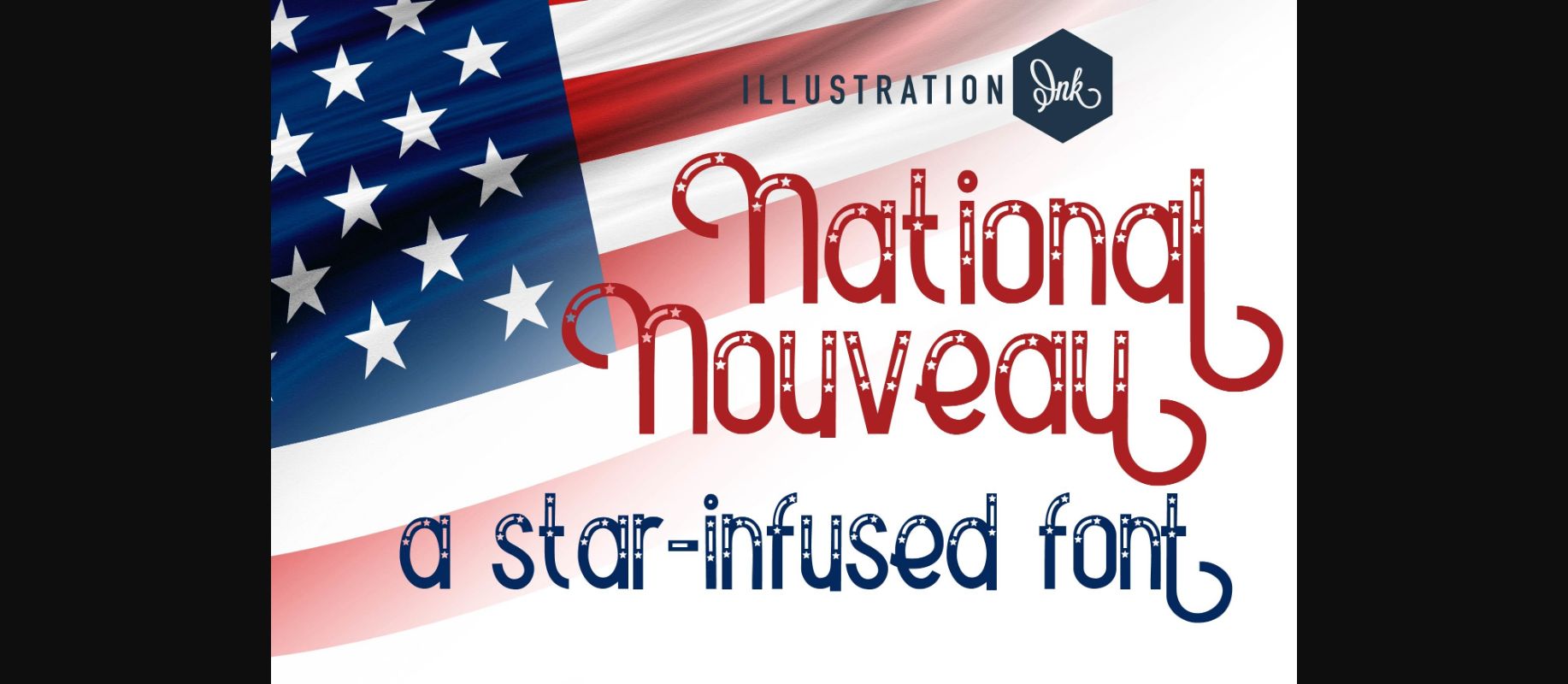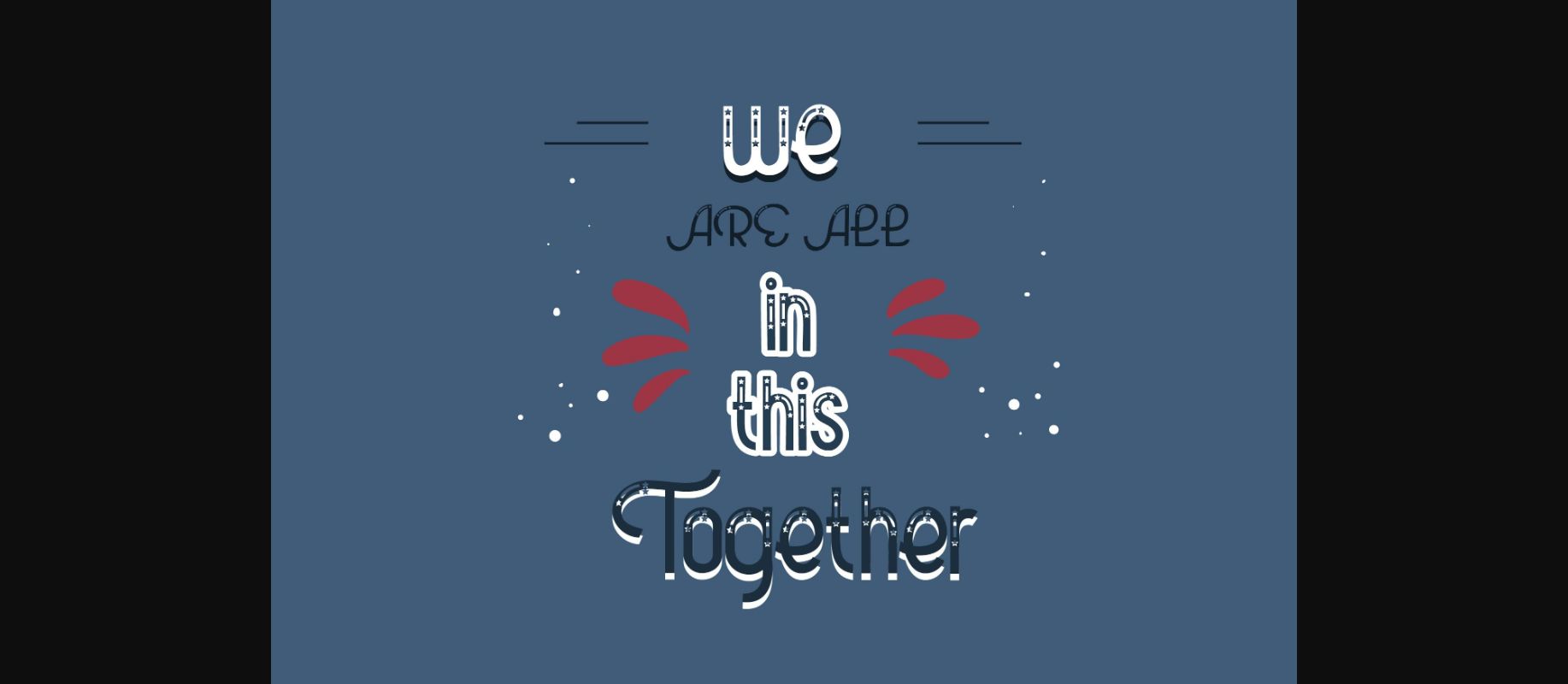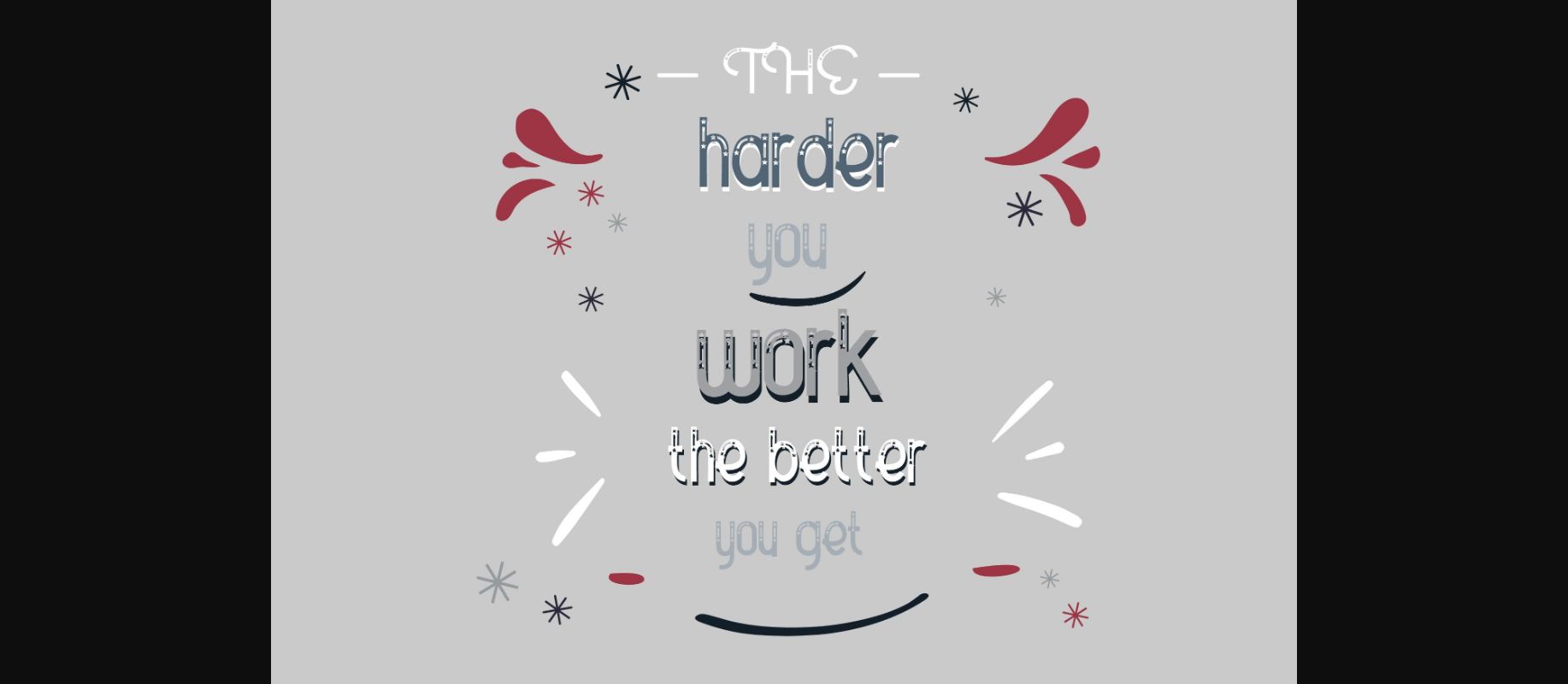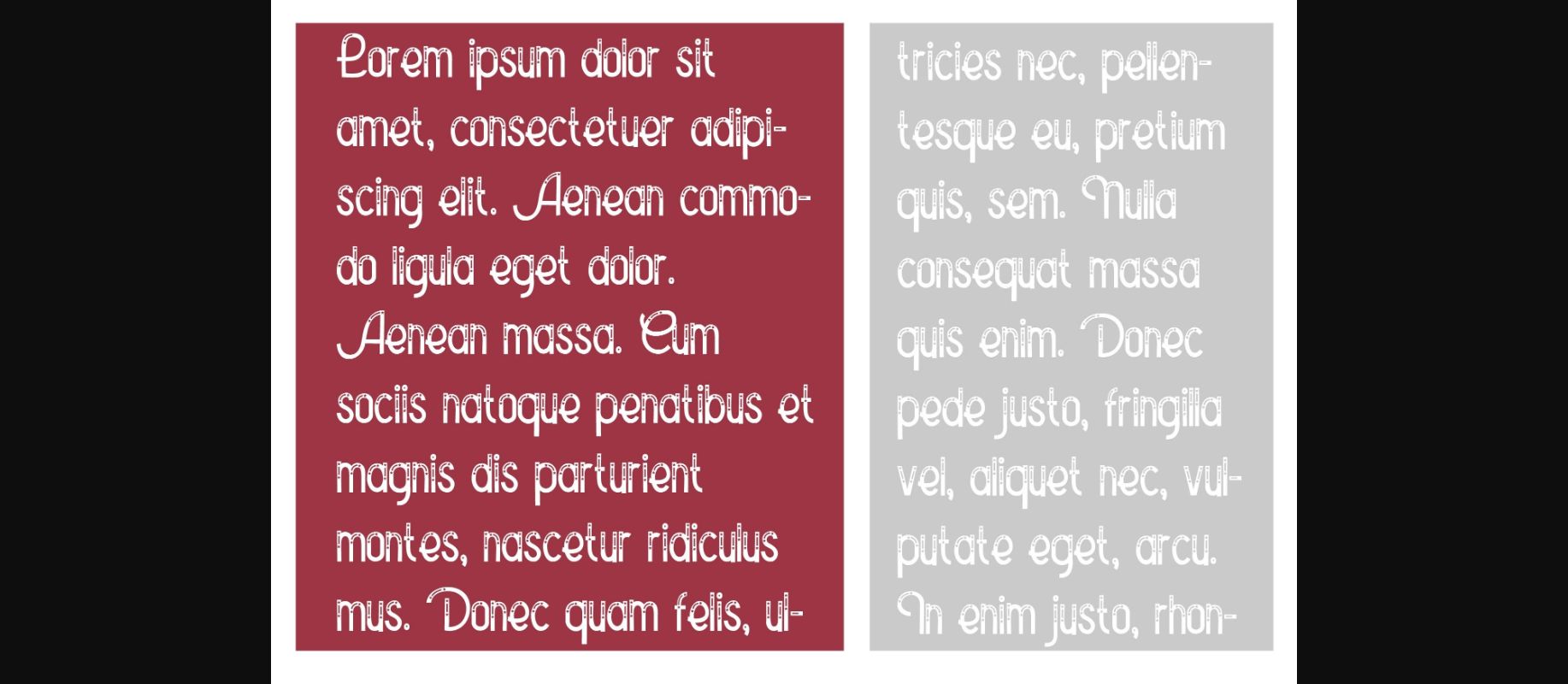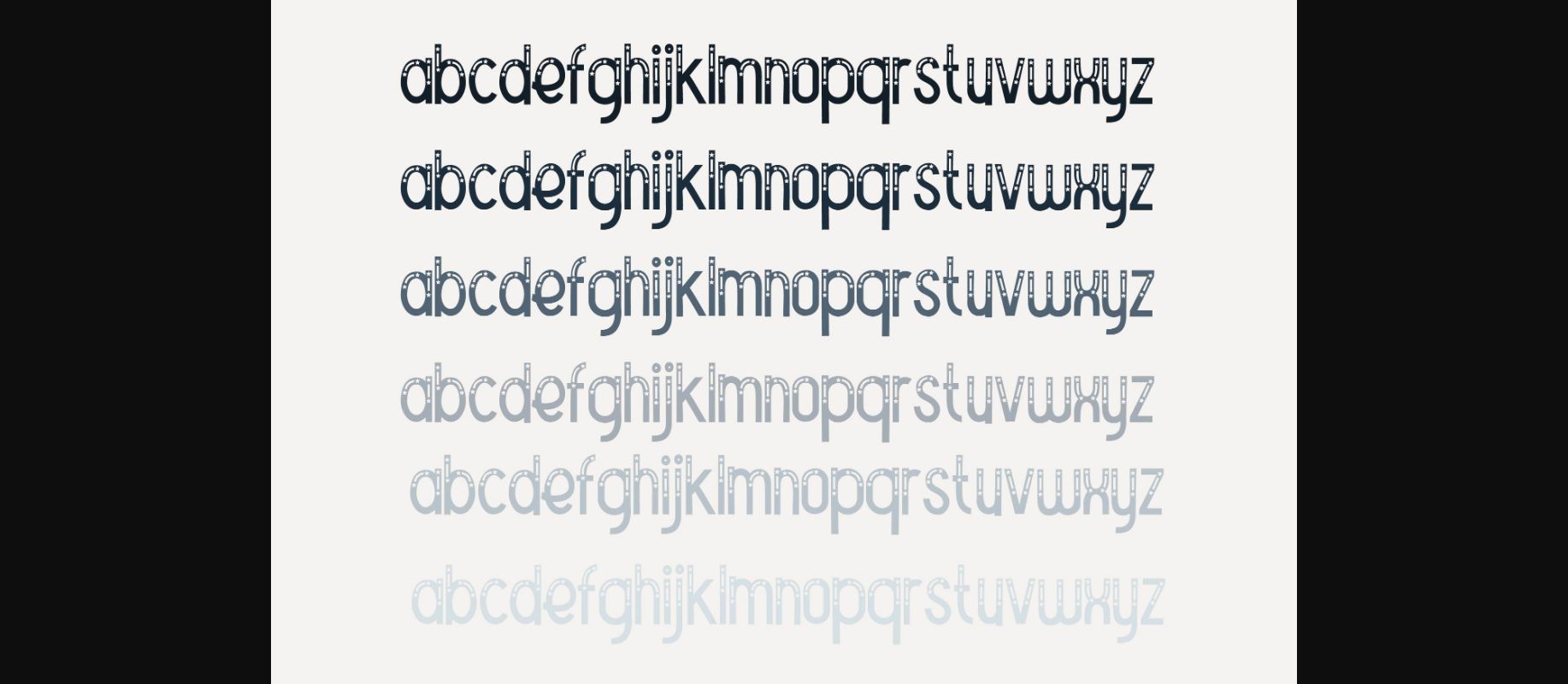
About National Nouveau Font
Its distinctive design serves as a visual reminder of the ideals and values that the American flag represents, making it an excellent choice for adding a touch of national pride and identity to various design projects.